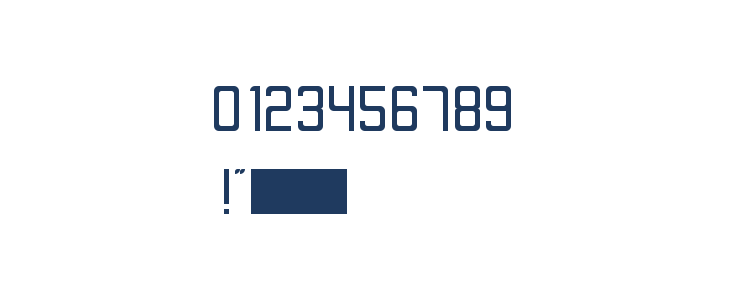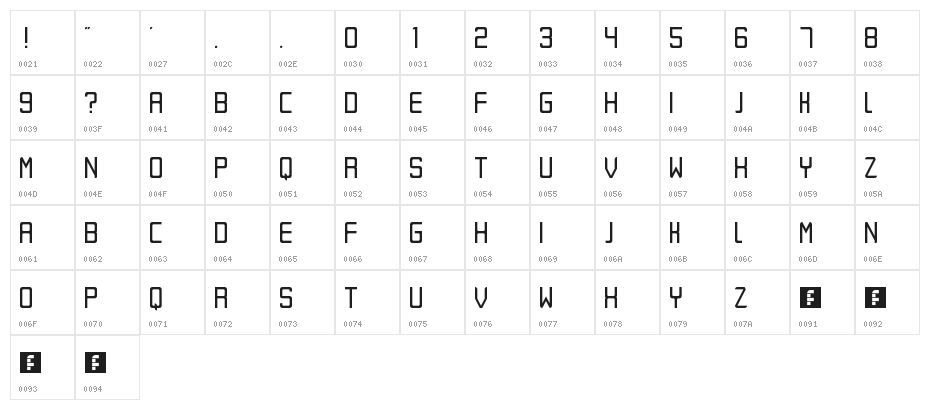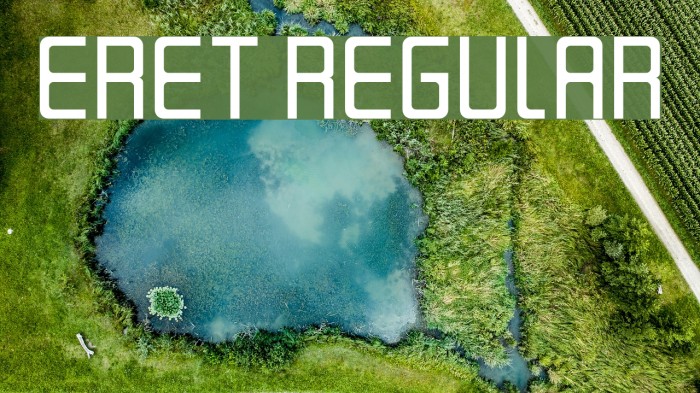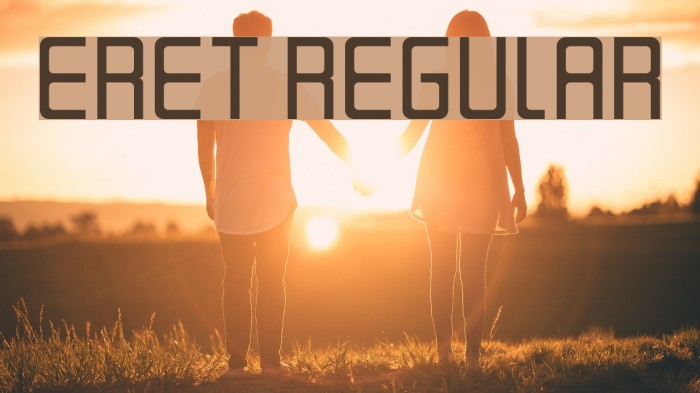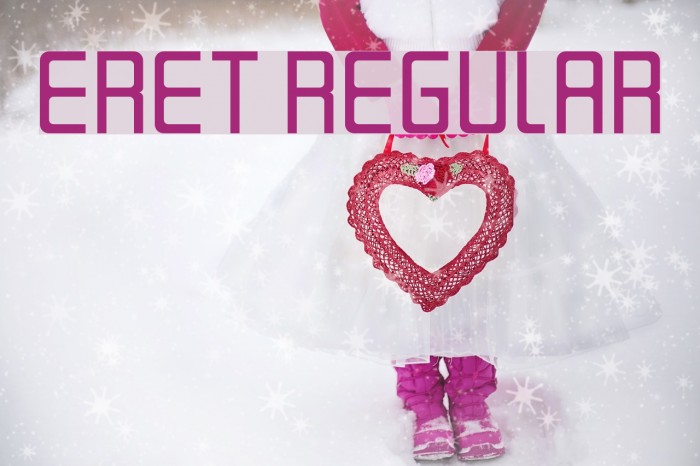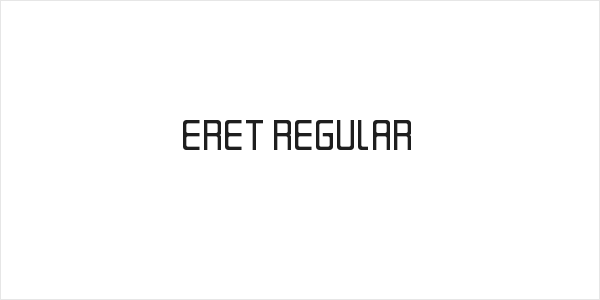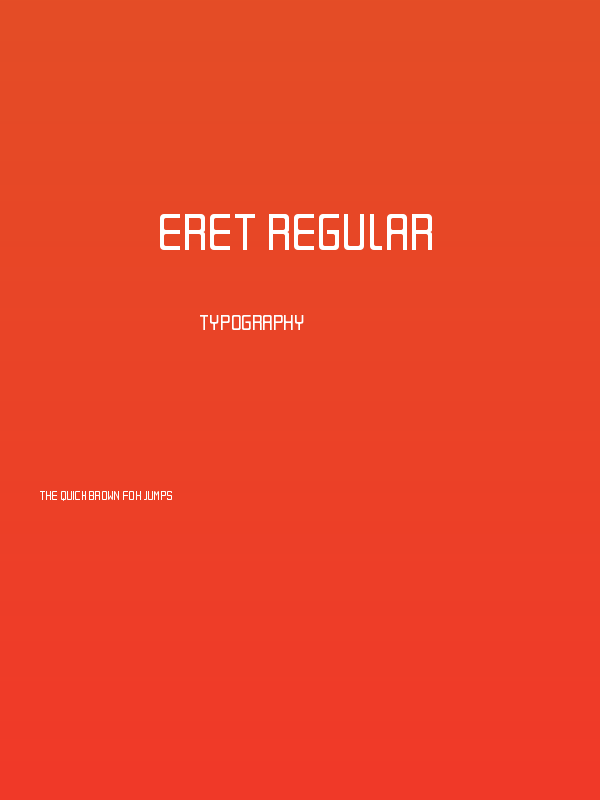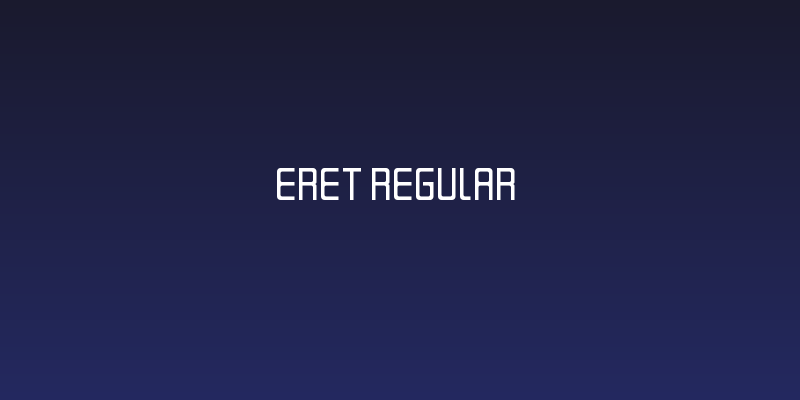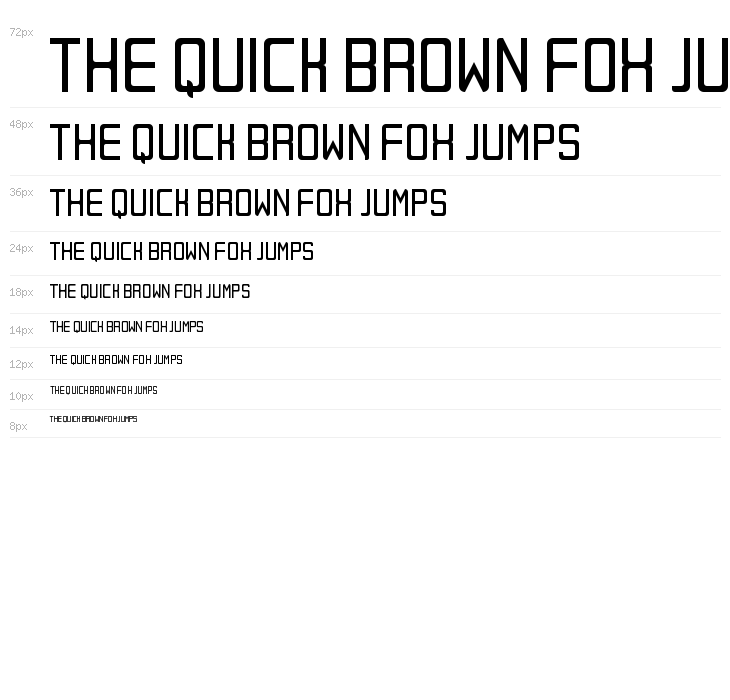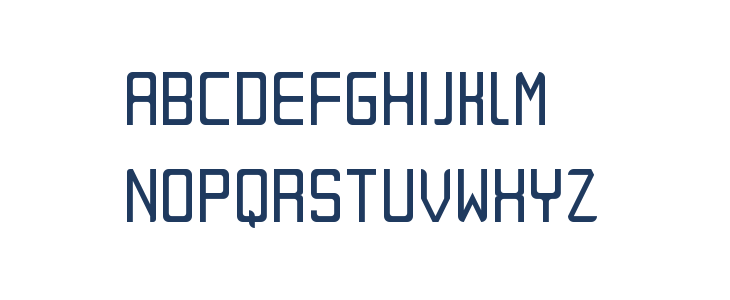
Eret Regular Font
Eret Regular Description
This font features a modern and geometric design with clean, straight lines and a slightly condensed appearance. The characters are uniform in width, providing a balanced and cohesive look. The uppercase and lowercase letters maintain a consistent style, with rounded corners that soften the overall appearance. The numerals are clear and easy to read, matching the style of the alphabet. Special characters are included, maintaining the same geometric and modern aesthetic. This font is versatile, suitable for various design projects that require a contemporary and sleek look.